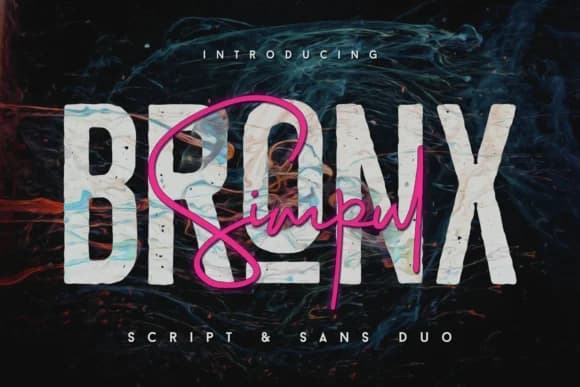
1 / 9About Bronx Simpul Duo Font
Bronx Simpul Duo by I Do Not Sleep is a coordinated serif and script pairing that blends understated elegance with contemporary versatility. The collection comprises three distinct styles, a clean serif base, an outline variation for dimensional effects, and a flowing script companion, each equipped with full uppercase and lowercase character sets, comprehensive numerals, and extensive punctuation support. This multi-style font family excels for sophisticated branding applications like luxury jewelry packaging, boutique florist invitations, and artisanal beauty product labeling. The outline and trace variations offer particular advantages for custom logo design work, enabling designers to create layered depth effects without requiring additional fonts. The pairing functionality allows seamless switching between styles within a single project, making it especially valuable for elegant event stationery, premium e-commerce product imagery, and editorial layouts that benefit from typographic contrast. The included ligatures enhance the script font's natural flow when accessed through OpenType-enabled software, automatically refining letter pair connections for polished results. Whether you're developing a cohesive visual identity or designing intricate composition work, Bronx Simpul Duo provides the flexibility and refinement your projects deserve. Discover this versatile font duo on Creative Fabrica and explore how its layered styling options can enhance your next design.
Bronx Simpul Duo Font is a script font that shines as a display or heading face. Pair it with a clean sans-serif or serif font for body text β the contrast creates a clear hierarchy while the two styles stay balanced and easy to read.